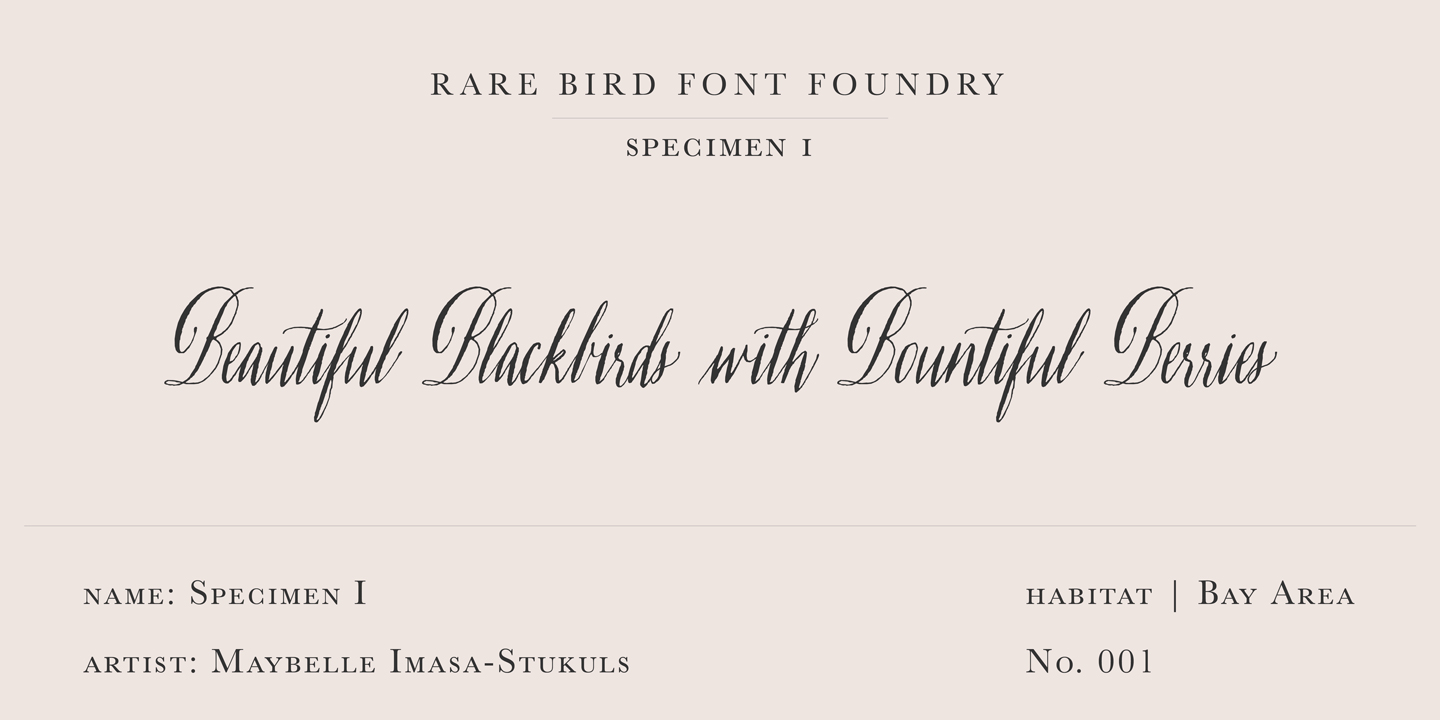
This unique font is perfect for natural history museums, birdwatching organizations, wildlife conservation campaigns, ornithology publications, nature documentaries, environmental education materials, scientific research presentations, and eco-tourism branding. Its distinctive character makes it ideal for projects requiring scientific authenticity and natural world fascination.
Rare Bird Specimen Font is exciting because it captures the meticulous precision of scientific field research with letterforms that mirror the careful documentation and specimen cataloging found in ornithological studies. The font features naturalistic details, organic irregularities, and authentic field notes aesthetics that reflect the passionate dedication of bird researchers and wildlife conservationists. Its scientific personality combines academic credibility with the wonder of discovering rare species in their natural habitats.
The Rare Bird Specimen Font family typically includes regular and field-worn variations, along with scientific notation elements, naturalistic ornaments, and specimen-inspired decorative features. Many versions feature alternate characters with different weathering effects and specialized glyphs that enhance the authentic field research aesthetic.
Whether you're developing wildlife conservation brands, scientific publications, or nature education campaigns, Rare Bird Specimen Font Free Download provides authentic scientific credibility with environmental passion. This typeface transforms ordinary communications into fascinating discoveries that resonate with nature enthusiasts, researchers, and conservationists who appreciate the beauty and importance of biodiversity. Its distinctive character adds immediate scientific authority while celebrating the wonder of Rare Bird Specimen Font Free Download and the critical importance of protecting our planet's most precious and endangered species.